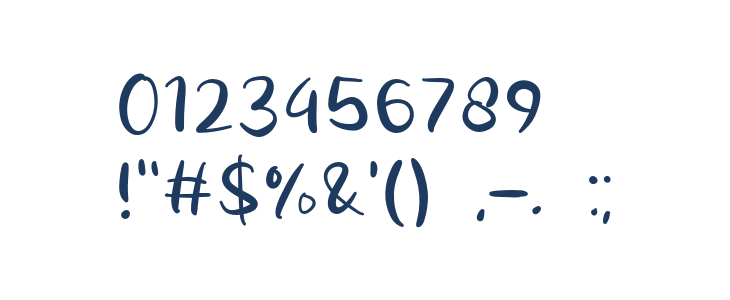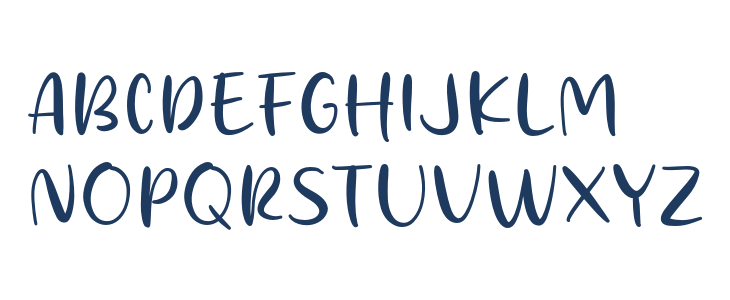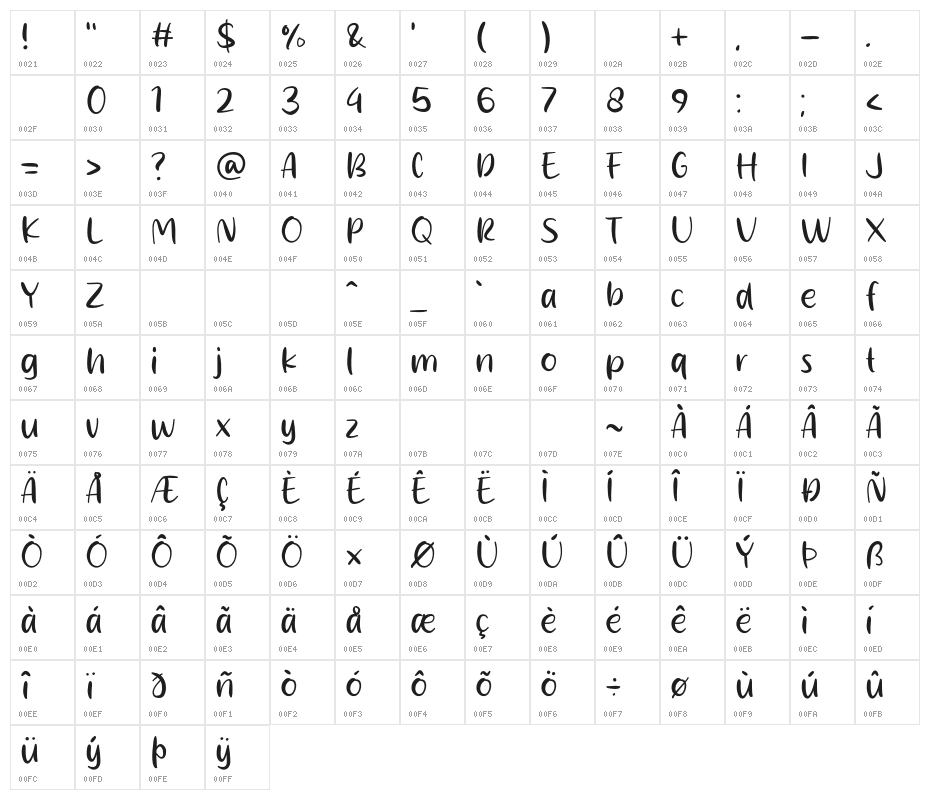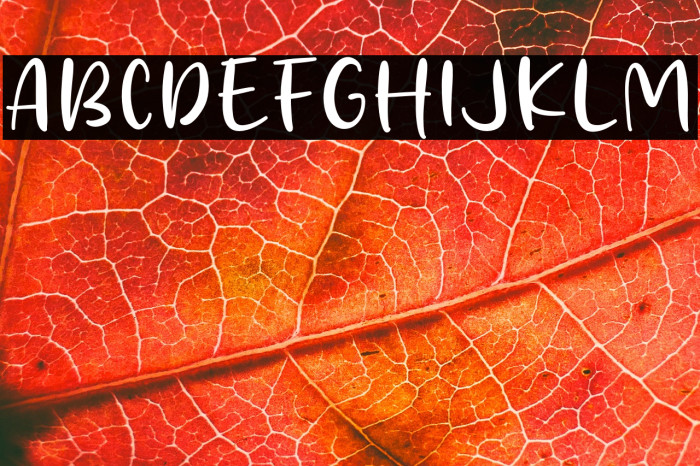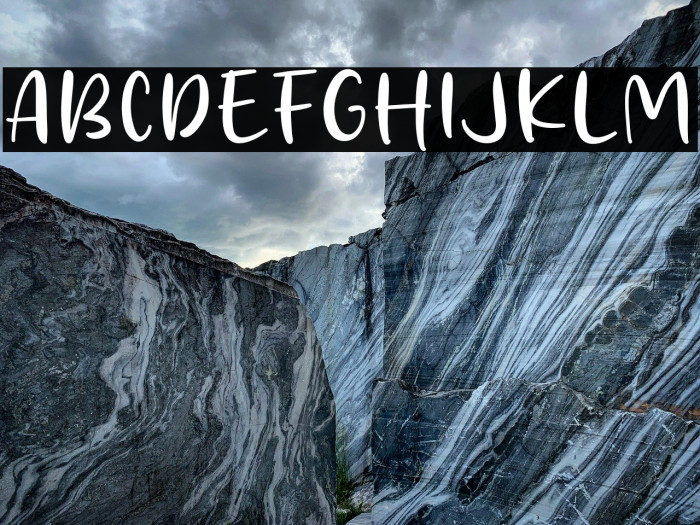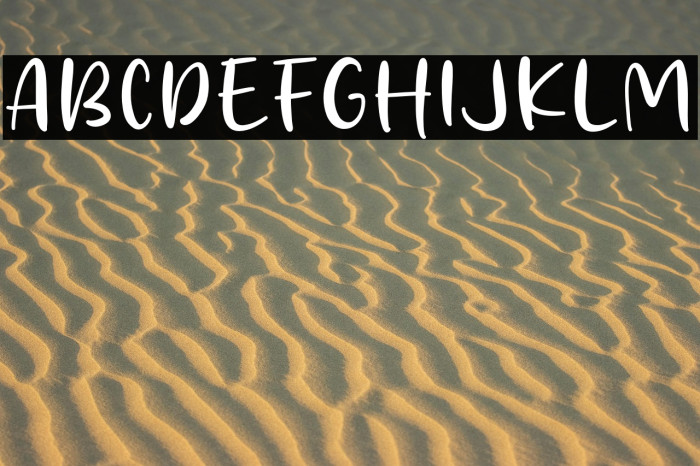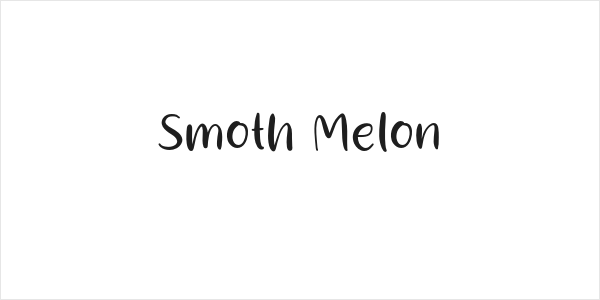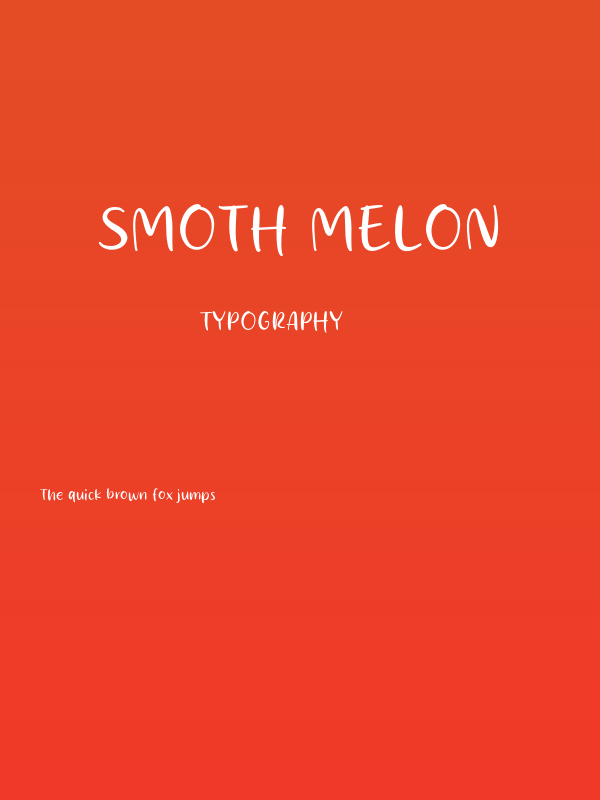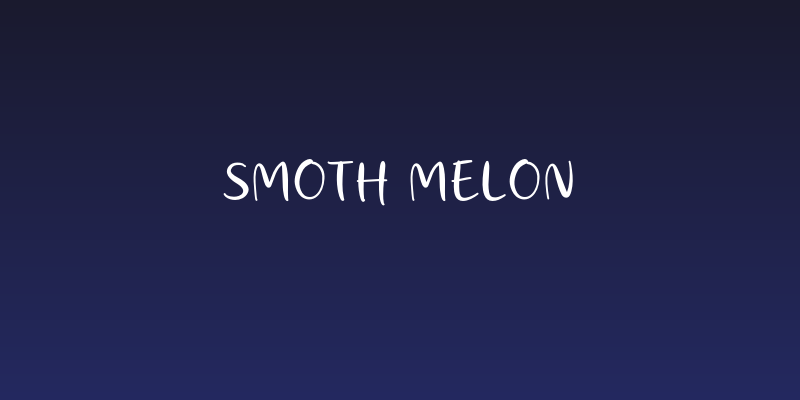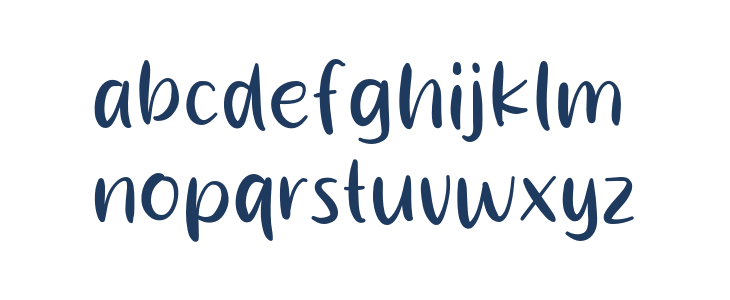
Smoth Melon Font
Smoth Melon Description
A playful, rounded handwritten typeface with smooth, consistent strokes and a casual, friendly appearance. The characters are slightly irregular, adding a personal and informal touch.
| Overall Style | Playful, Casual, Friendly |
| Use Case | Headlines, Short text, Posters, Invitations |
| Proposed Projects | Greeting cards, children's books, posters, social media graphics, informal branding. |